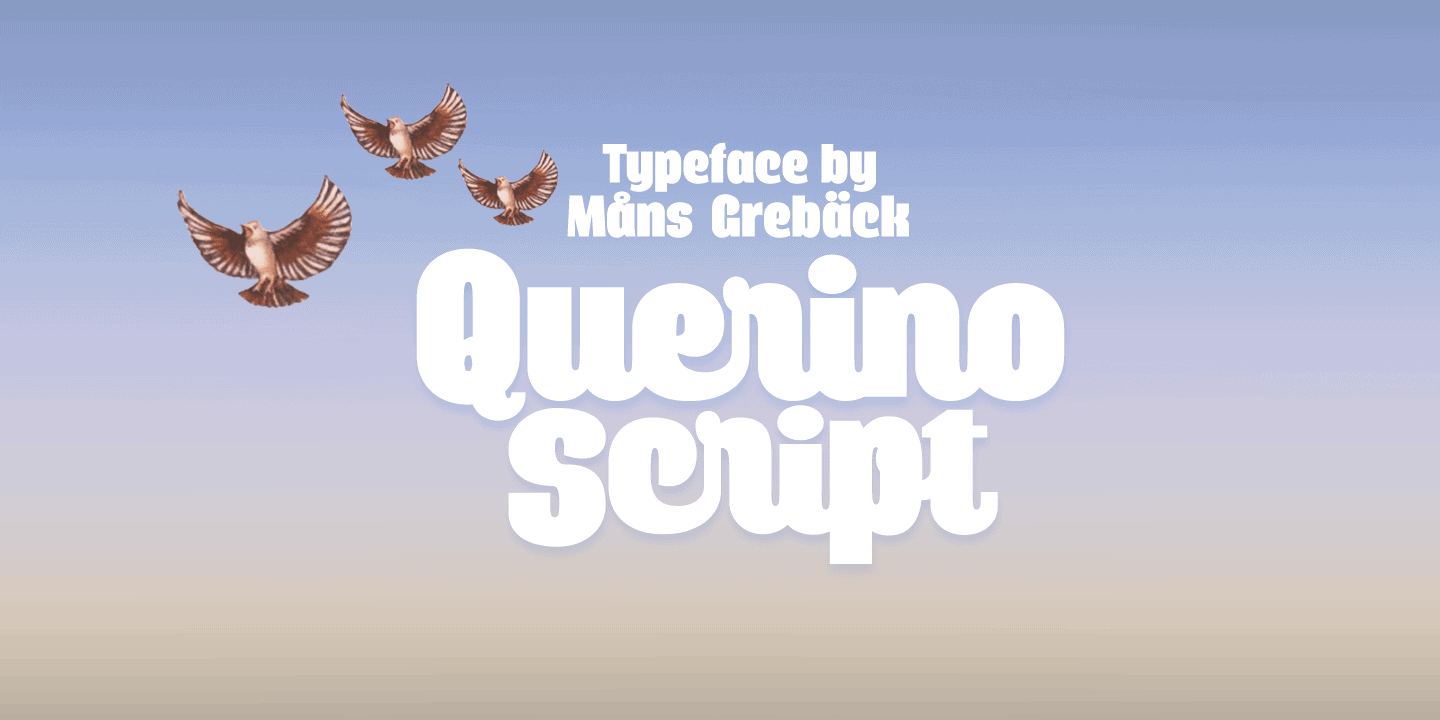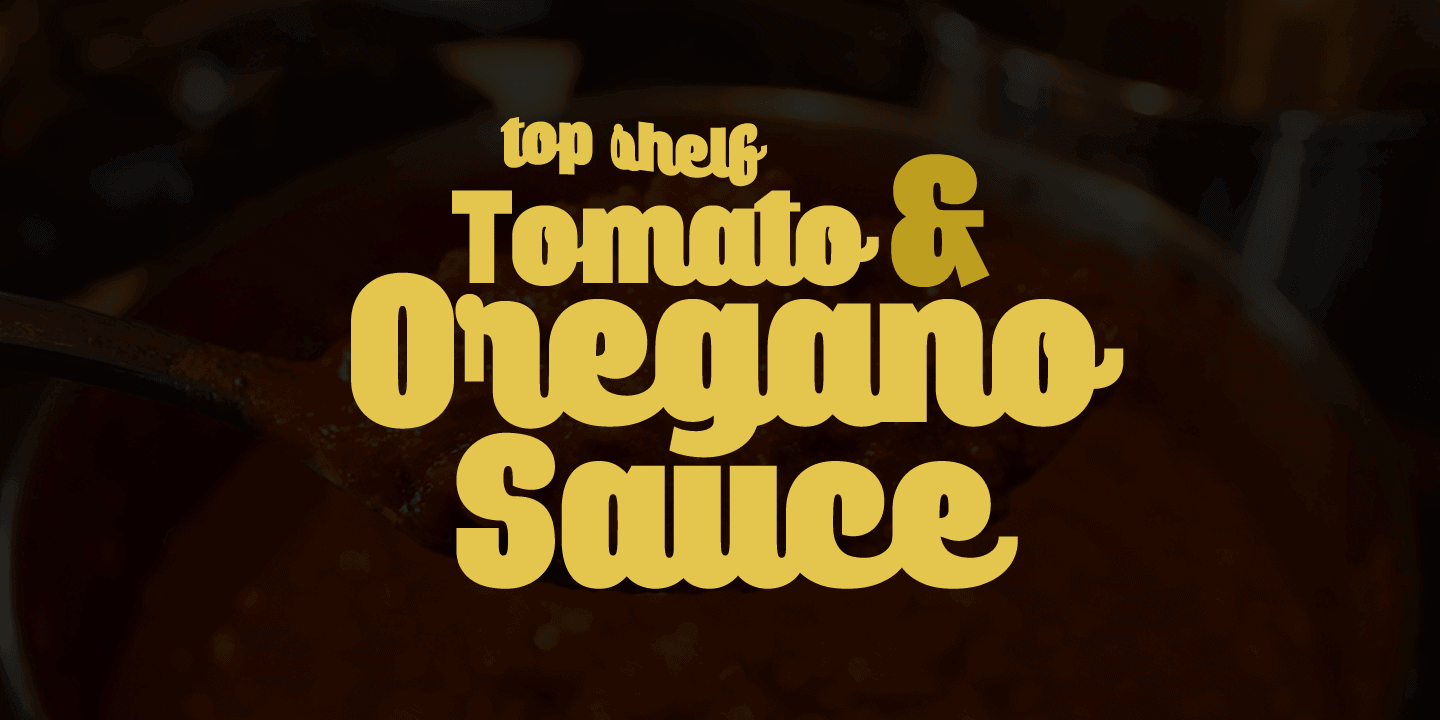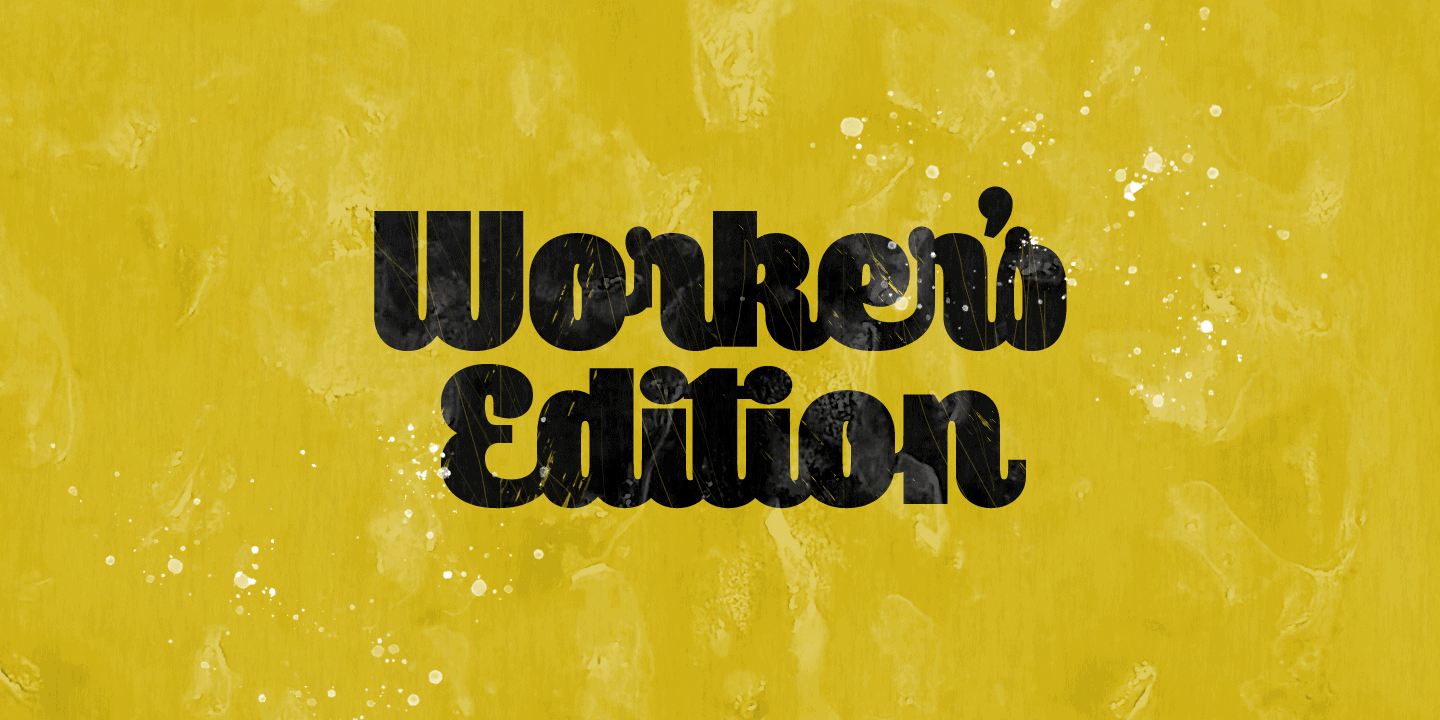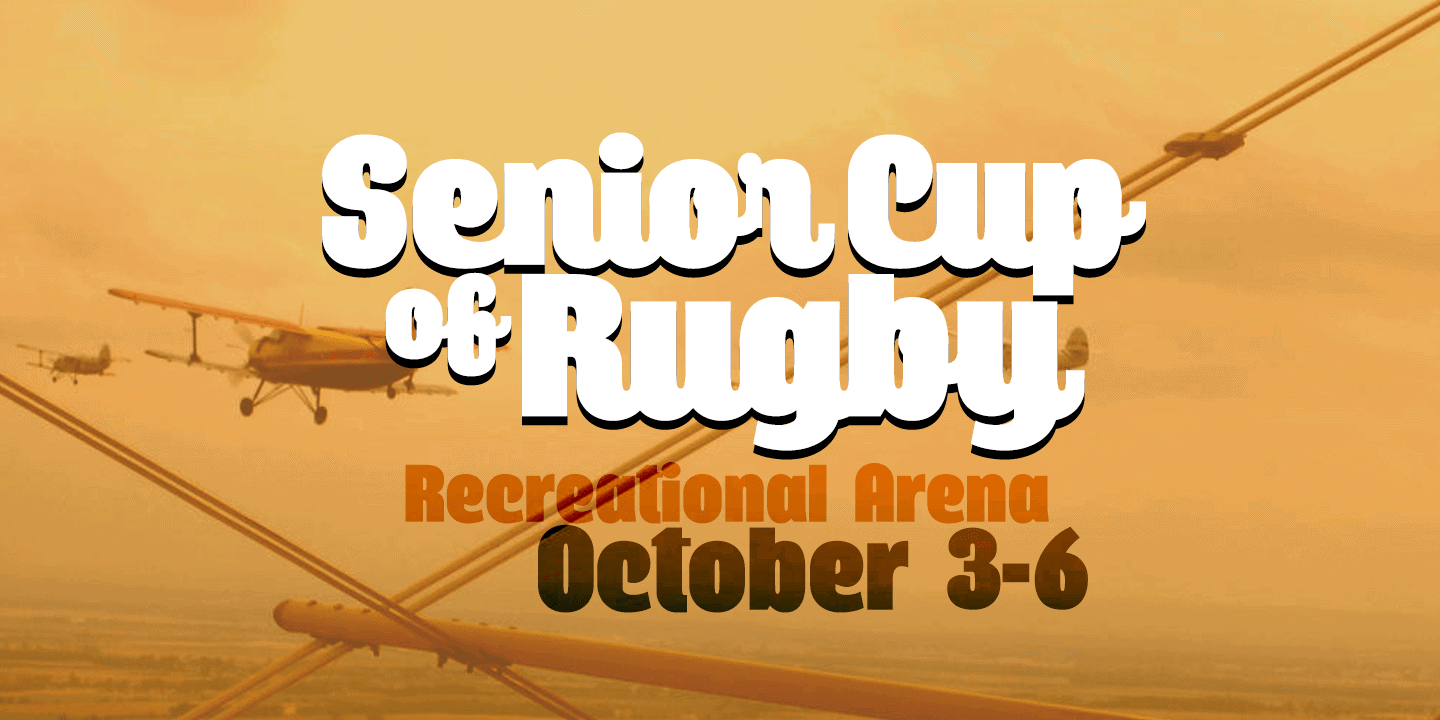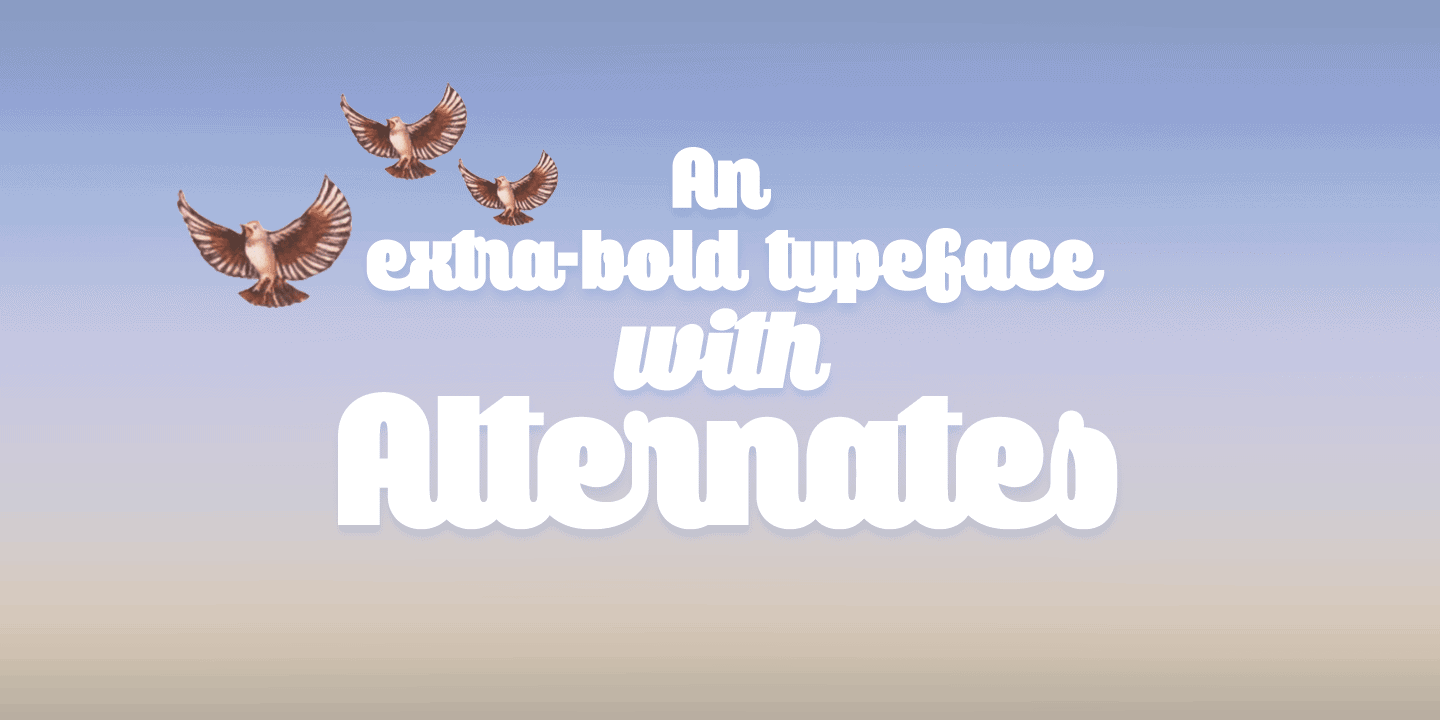
Querino Script
Querino Script is an extra-bold script font, created by Måns Grebäck during 2018 and 2019. It comes as a regular, upright version and as italic. Also check out its sister typeface Querino Sans.
The font is multilingual and has an extensive range of glyphs; it supports all Latin-based European languages, contains numbers as well as all symbols and characters you’ll ever need.